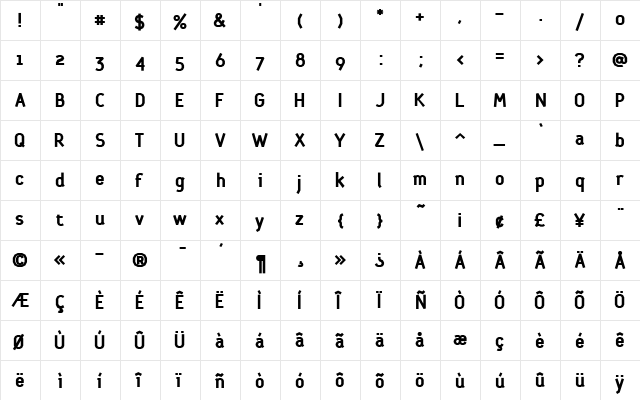
Dubius Bold Font Preview
Dubius Bold
Design Context for Dubius Typeface
Dubius takes a measured approach to typography — its balanced proportions and neutral character make it a reliable workhorse for both digital and print work. Its bold stroke weight gives it real presence on the page.